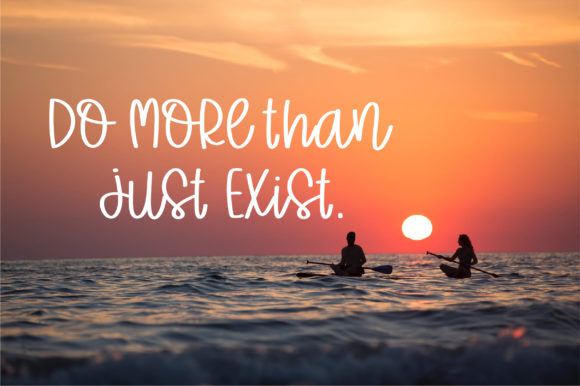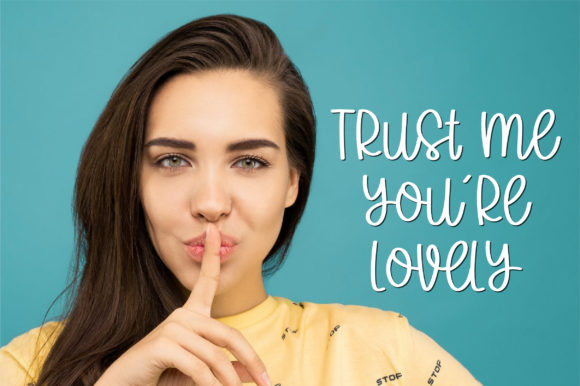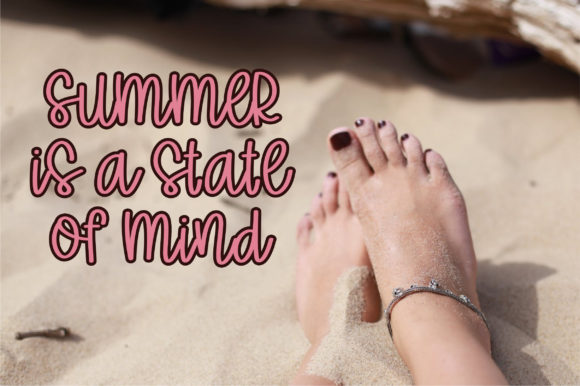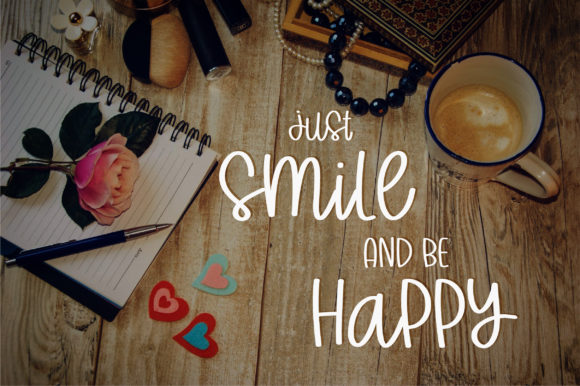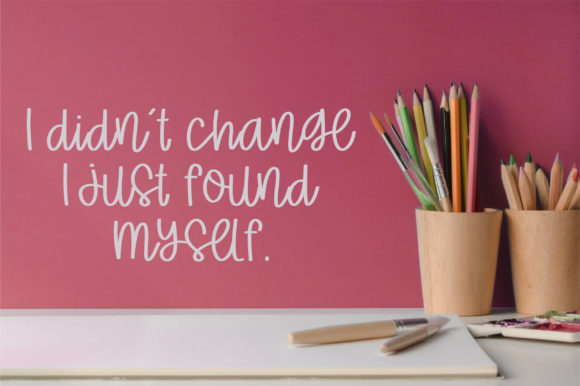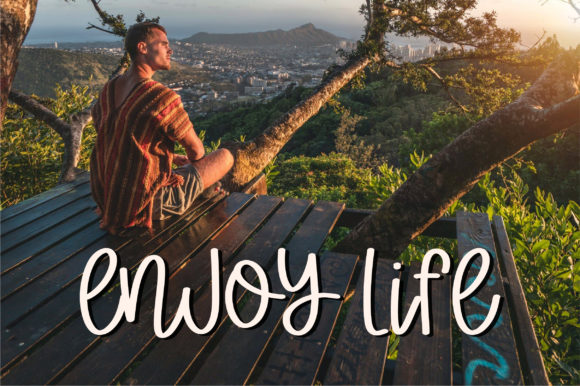
Introduction to Smile World Font
Smile World is a cheerful and friendly handwritten font.
It will elevate a wide range of design projects to the highest level, be it branding, headings, wedding designs, invitations, signatures, logos, labels, and much more .
Key Features of Smile World Font
Why Choose Smile World Font?
Smile World Font offers exceptional quality and versatility, making it a valuable addition to your design toolkit. Whether you’re creating for personal projects or commercial use, Smile World Font delivers professional results.